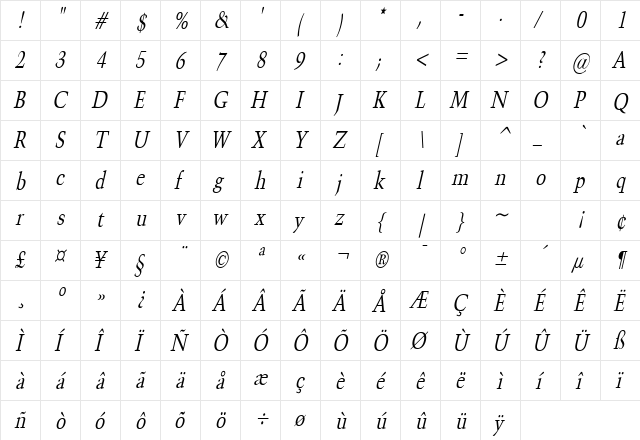
Congo Thin Italic
Design Context for Congo Thin Typeface
Congo Thin offers clean, dependable letterforms without strong stylistic allegiance, making it a practical choice for designers who need flexibility. Its italic angle brings a sense of urgency and motion to the letterforms. The delicate stroke weight brings airiness and refinement to layouts.
Pro Tip: Try Congo Thin for annotation and caption copy alongside an upright companion — the contrast in angle creates a dynamic but ordered typographic system.